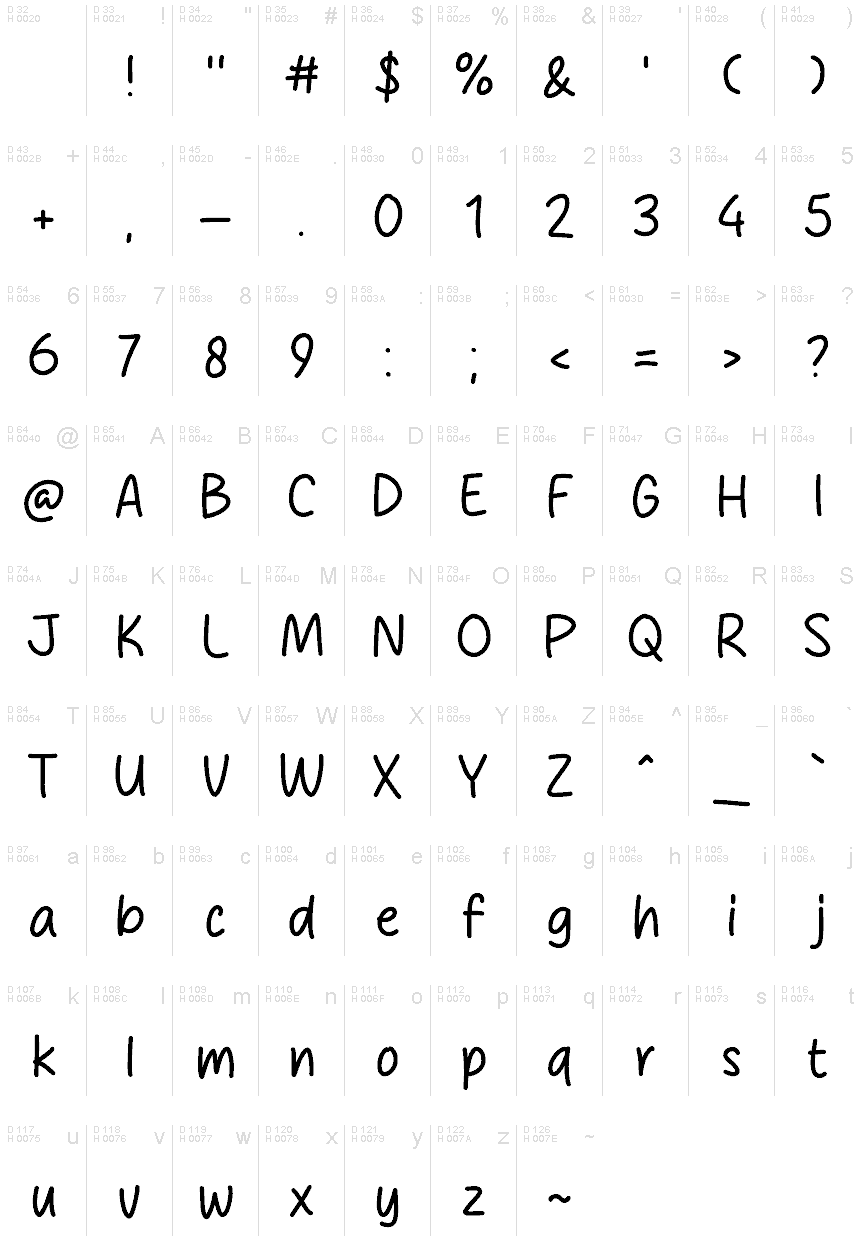
Impact Stone
Impact Stone font from MJType introduces a unique handwritten style with casual and friendly organic shapes. Its uneven curves make it modern yet imperfectly varied and balanced, providing a truly unique character. The font uses playful strokes which together deliver the charming familiar touch of handwriting in its most elegant form.
Impact Stone is designed to suit branding projects, posters, book covers, greeting cards, motivational quotes, headlines, title displays and many more. It would transform learning websites or children’s books in an instant if applied correctly. This free handwritten font can equally look good on packaging designs for dairy products like milk or cheese.